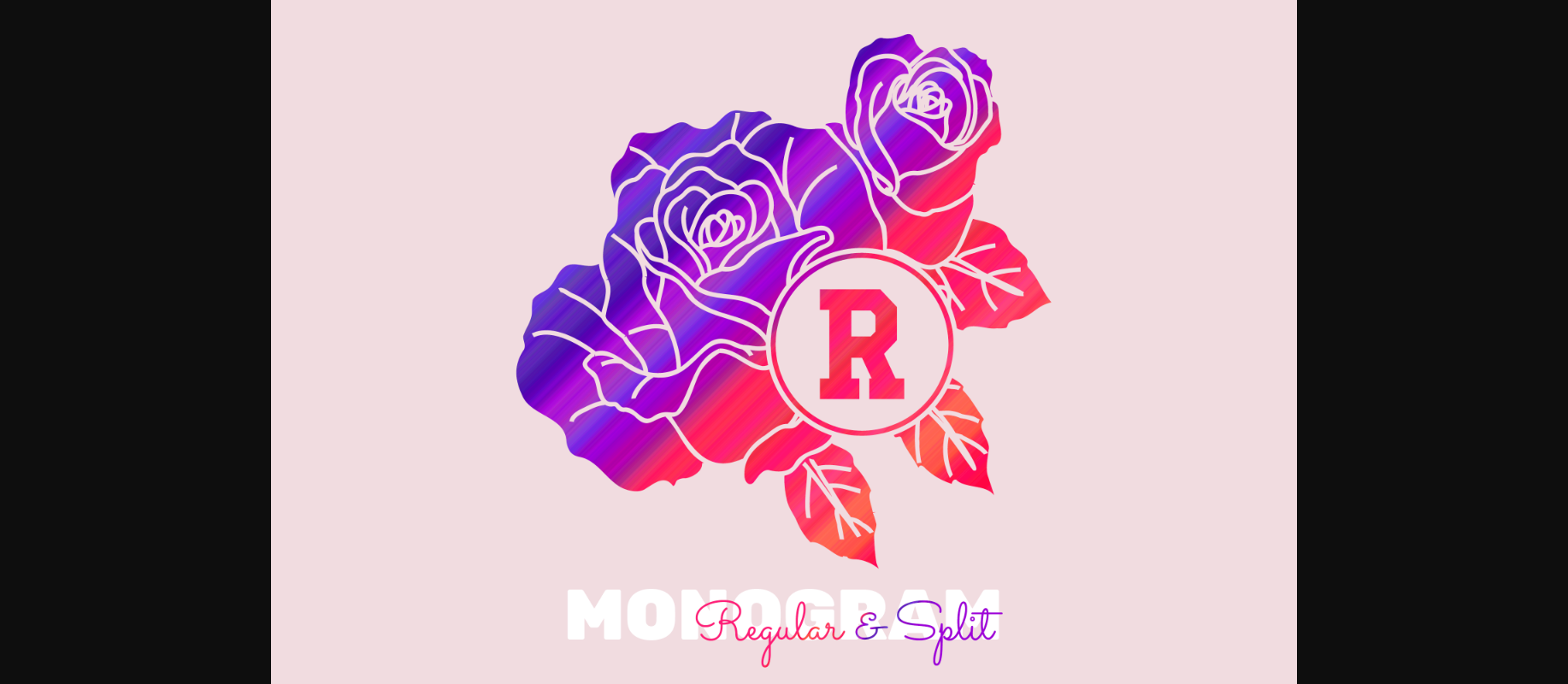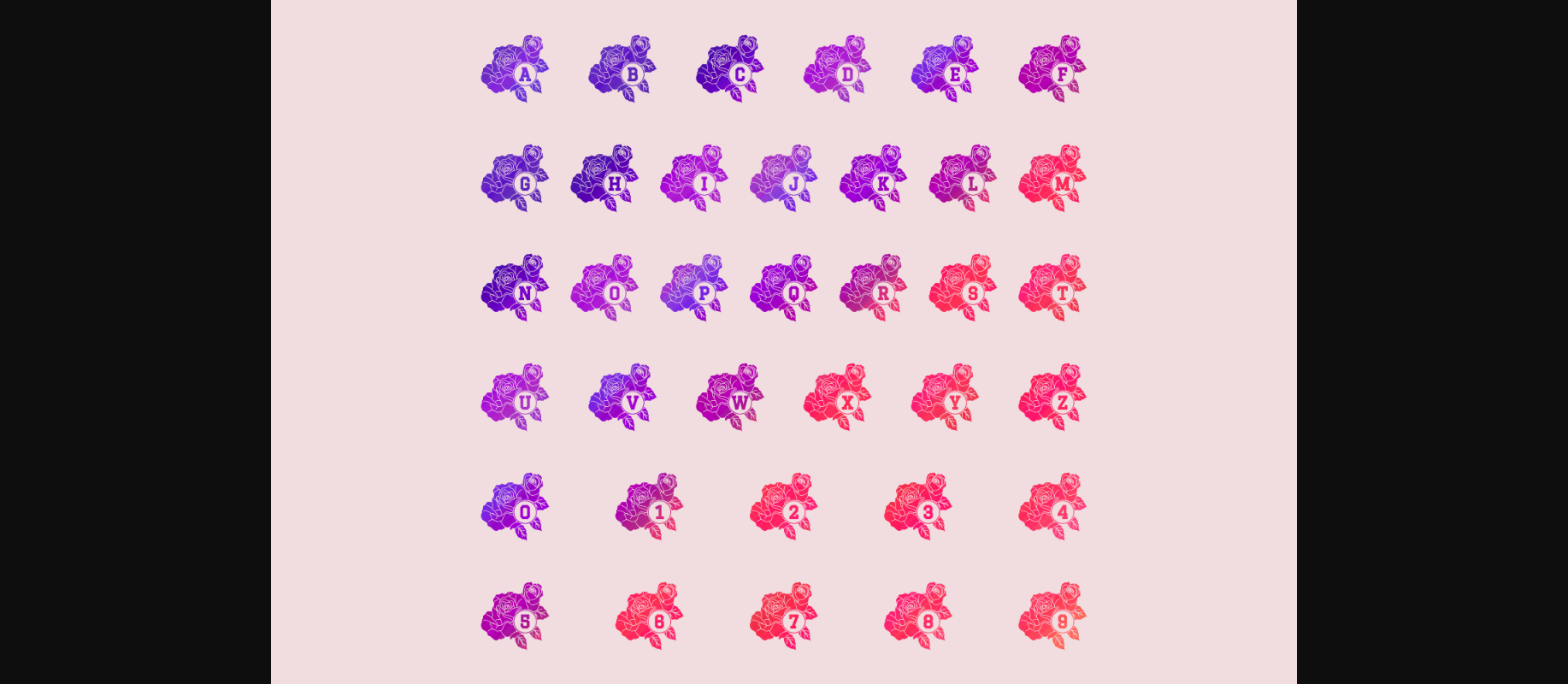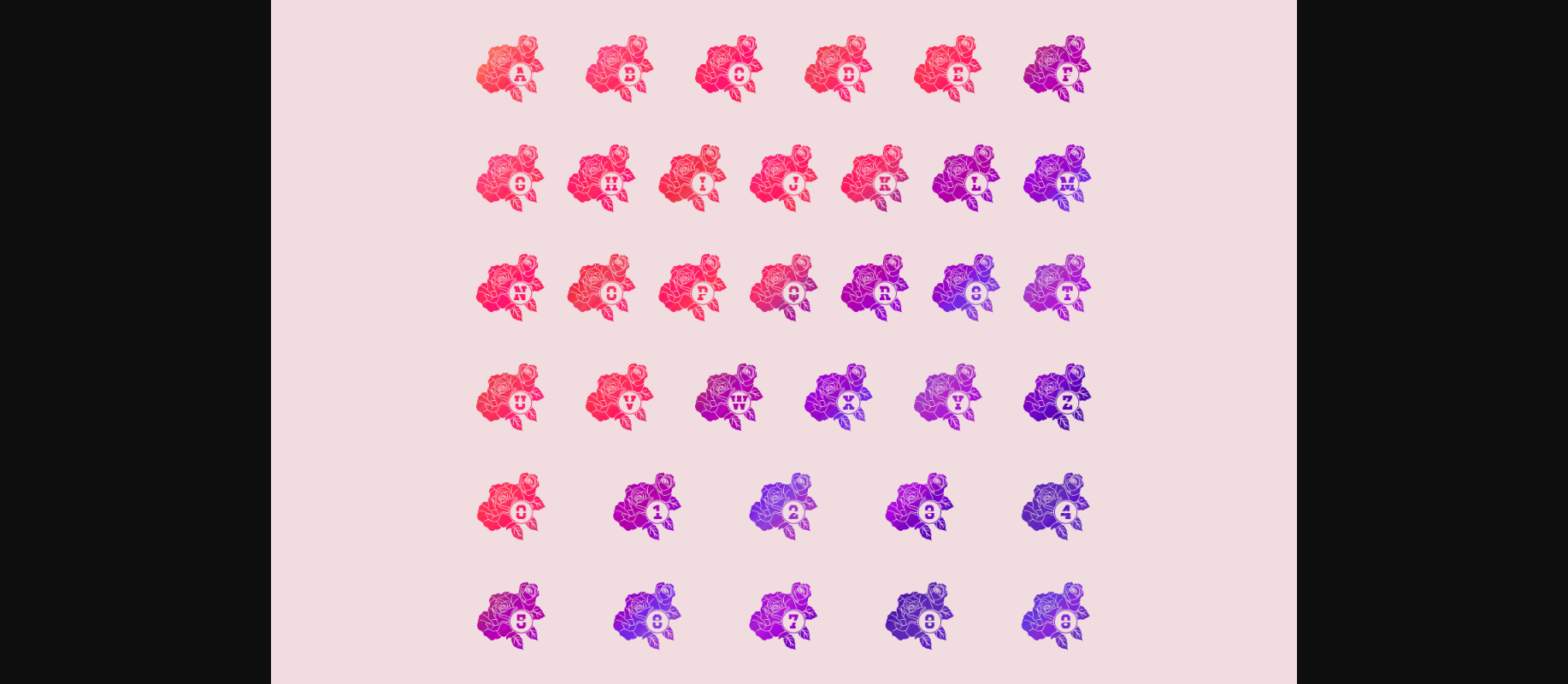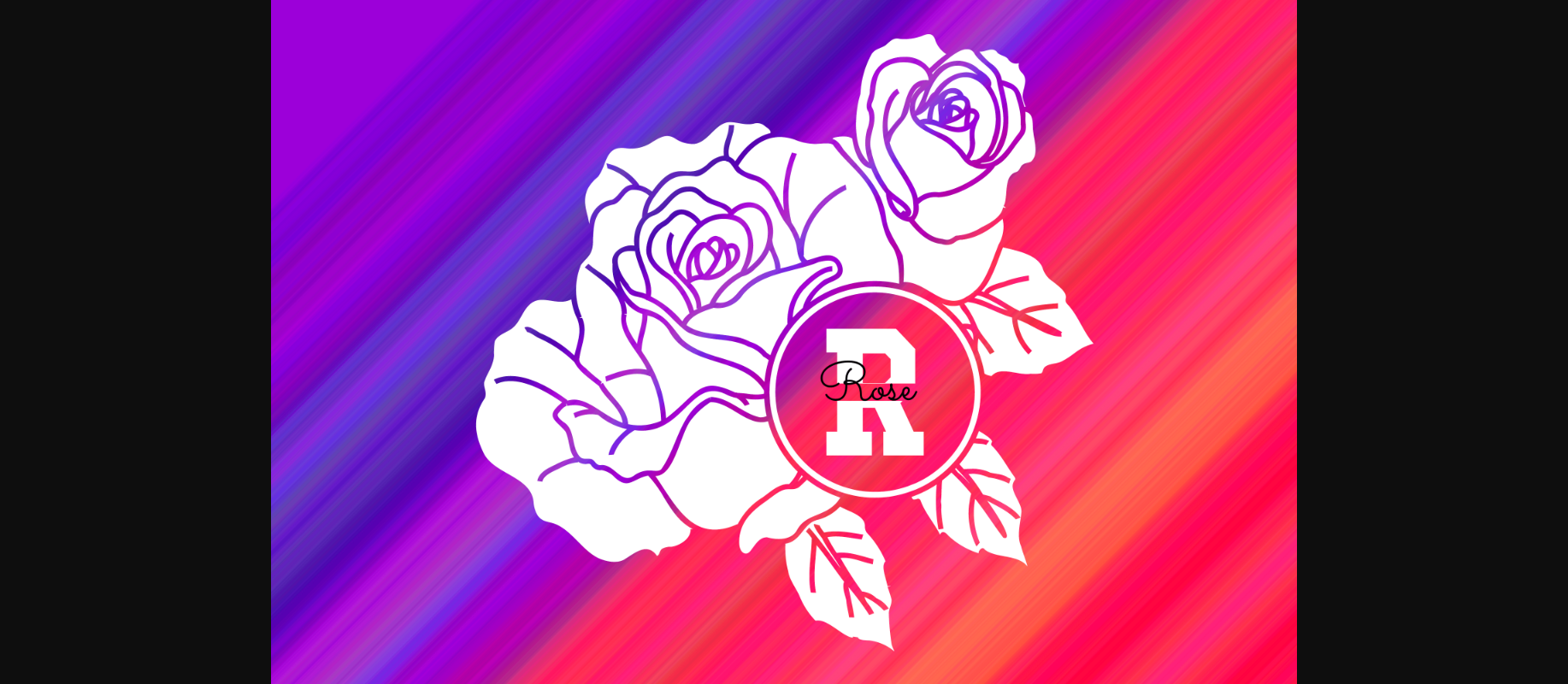
Rose Font
About Rose Font
Rose is an elegant botanical decorative font consisting of two styles (regular & split). This font is ideal for adding a unique floral decoration to your crafts. Whether you use it for custom designs, DIY crafts, or just any creation that requires a lovely touch, this font will be an amazing choice!